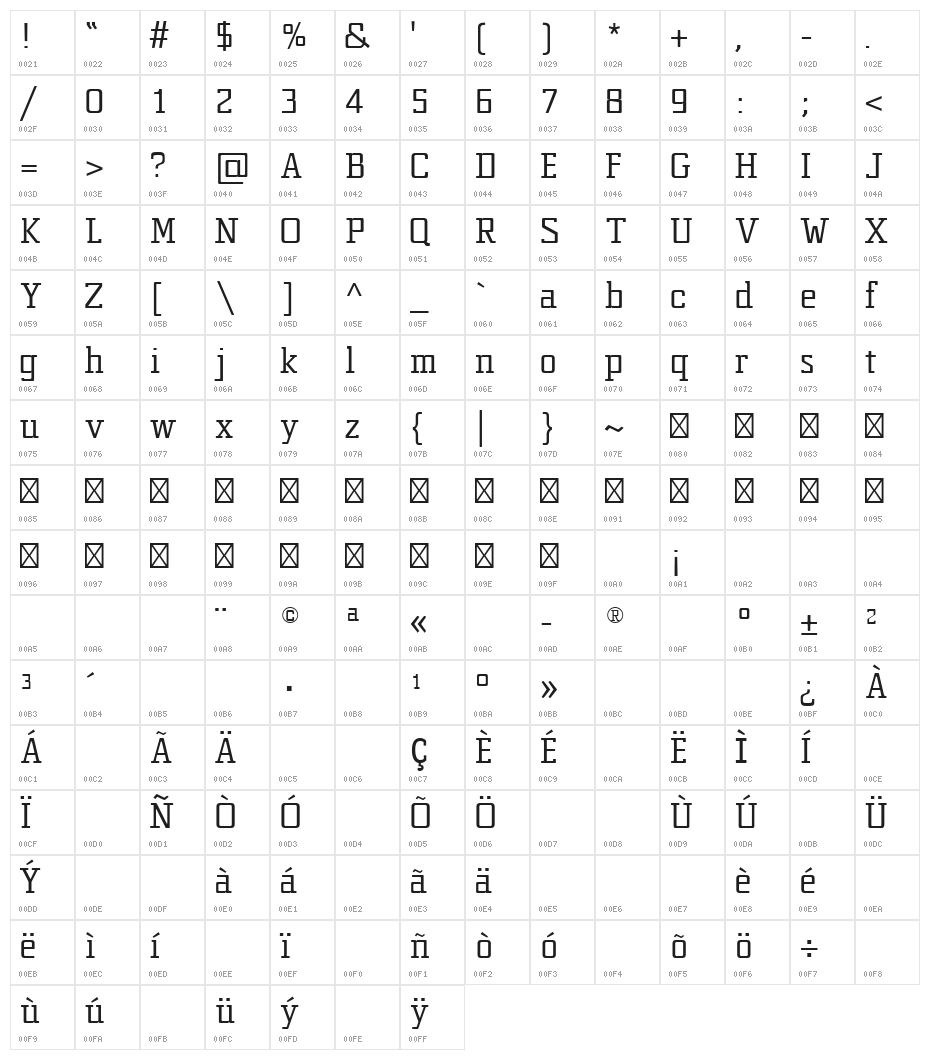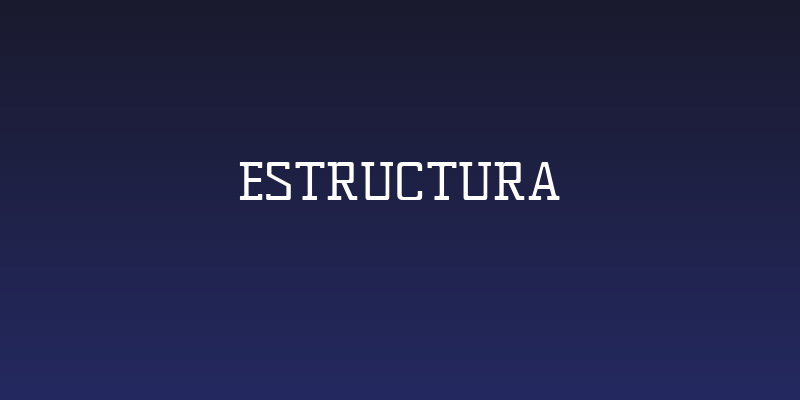
Estructura Font
Jessica Erizalde
| Область применения | Headlines, Logos, Signage |
| Рекомендуемые проекты | Ideal for branding, signage, posters, and editorial design where a modern and impactful look is needed. |